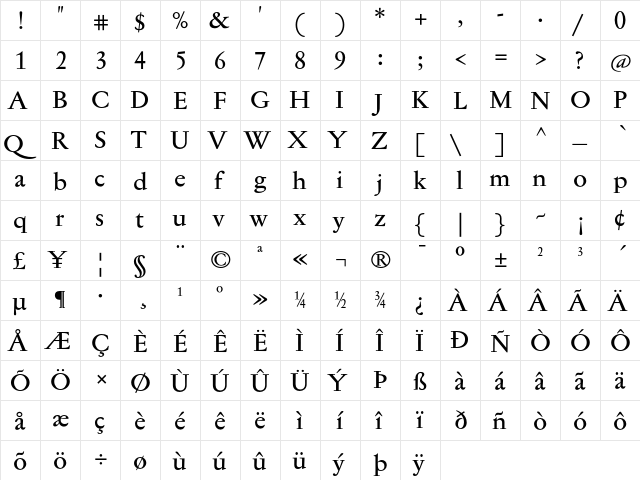
Jannon Text Med Regular Font Preview
Jannon Text Med Regular
Jannon Text Med Regular Font Details
| Foundry | Frantisek Storm, stormtype.com |
Design Context for Jannon Text Med Typeface
Jannon Text Med is a composed and adaptable typeface that performs quietly and consistently across a wide range of design contexts.